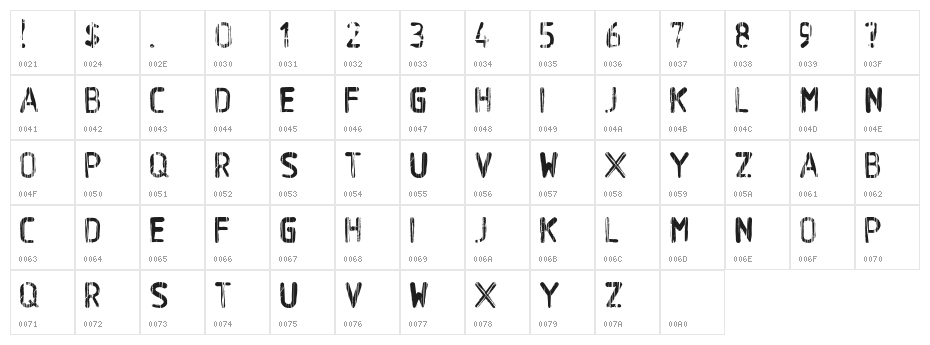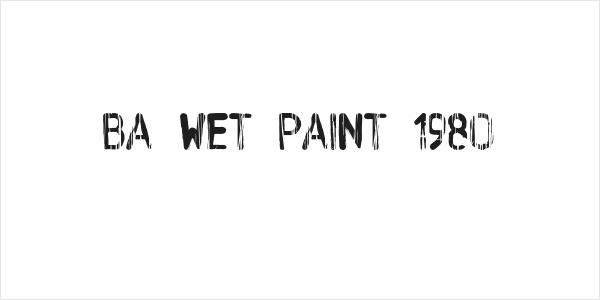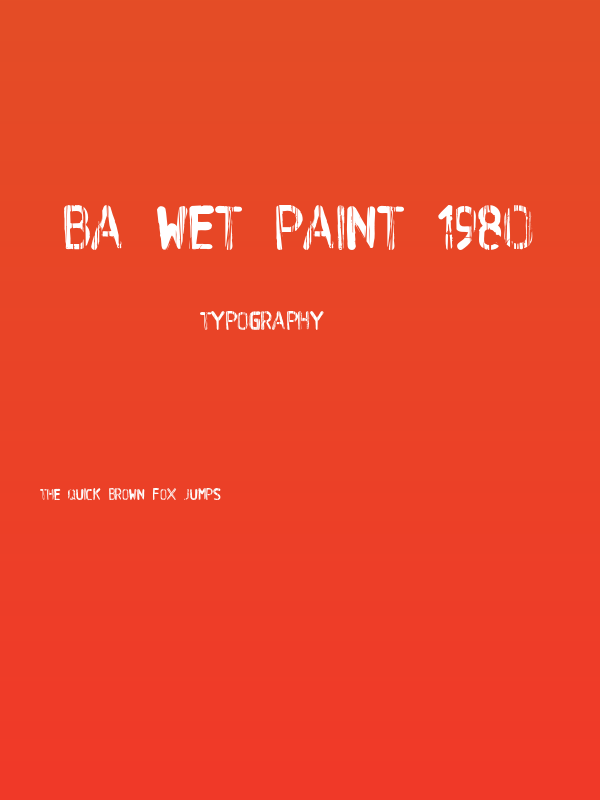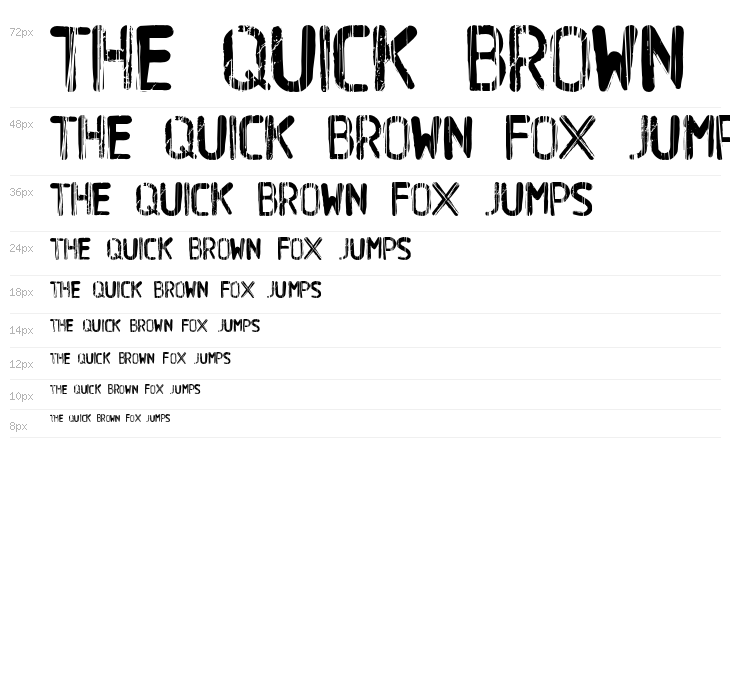
BA Wet Paint 1980 Font
BA Wet Paint 1980 Description
This font features a distressed, grunge style that mimics the appearance of wet paint dripping down the letters. The characters have a bold and rugged look, with uneven edges and a textured finish that adds a sense of movement and dynamism. The uppercase and lowercase letters maintain a consistent style, while the numbers and special characters follow the same distressed aesthetic. This font's unique appearance makes it stand out, offering a raw and edgy vibe that can be both artistic and rebellious.
| Overall Style | Grunge, Urban, Artistic |
| Proposed Projects | Ideal for urban-themed designs, music album covers, streetwear branding, graffiti art, and event posters. |